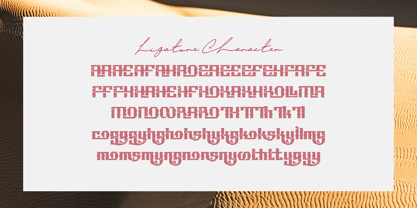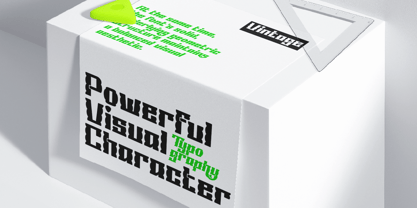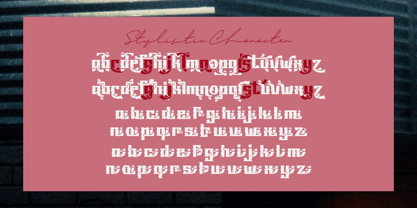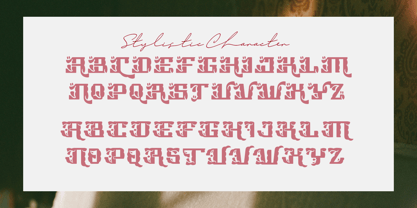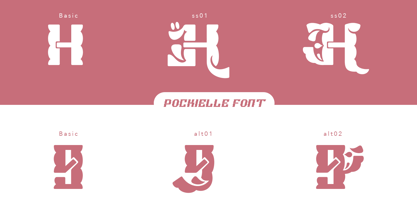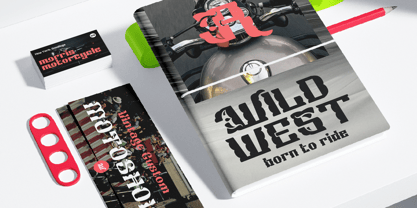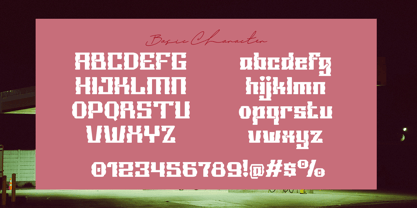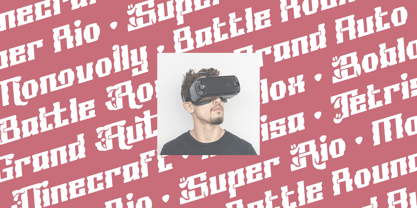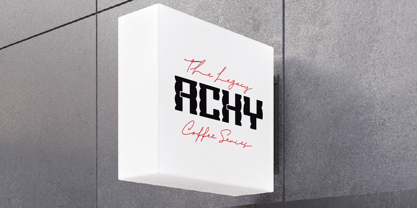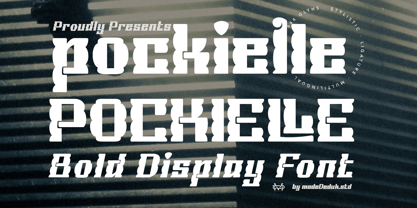
Pockielle
La familia tipográfica Pockielle fue diseñada por madededuk y publicada por madeDeduk. Pockielle contiene 2 estilos y opciones de paquete familiar. Más información sobre esta familia
Introducing Pockielle, this font boasts a powerful visual character, blending a rich decorative style with an elegant aesthetic. Its letterforms feature a contrast between thick and bold strokes and fine lines, alongside extreme modifications terminals. Curvilinear details, delicate vine-like decorative elements, and unique circular accents on select characters create an artistic impression that is both dynamic and graceful. These characteristics make the font ideal for display purposes, such as headlines, logo design, and retro-modern creative projects.
At the same time, the font’s solid, underlying geometric structure maintains a balanced visual aesthetic. Creative modifications to specific characters—such as expressive, sweeping curves at the top and bottom lend the typeface a bold and exclusive identity. This typographic style is perfect for strengthening visual branding that aims to convey a premium feel, high originality, and a profound artistic touch.